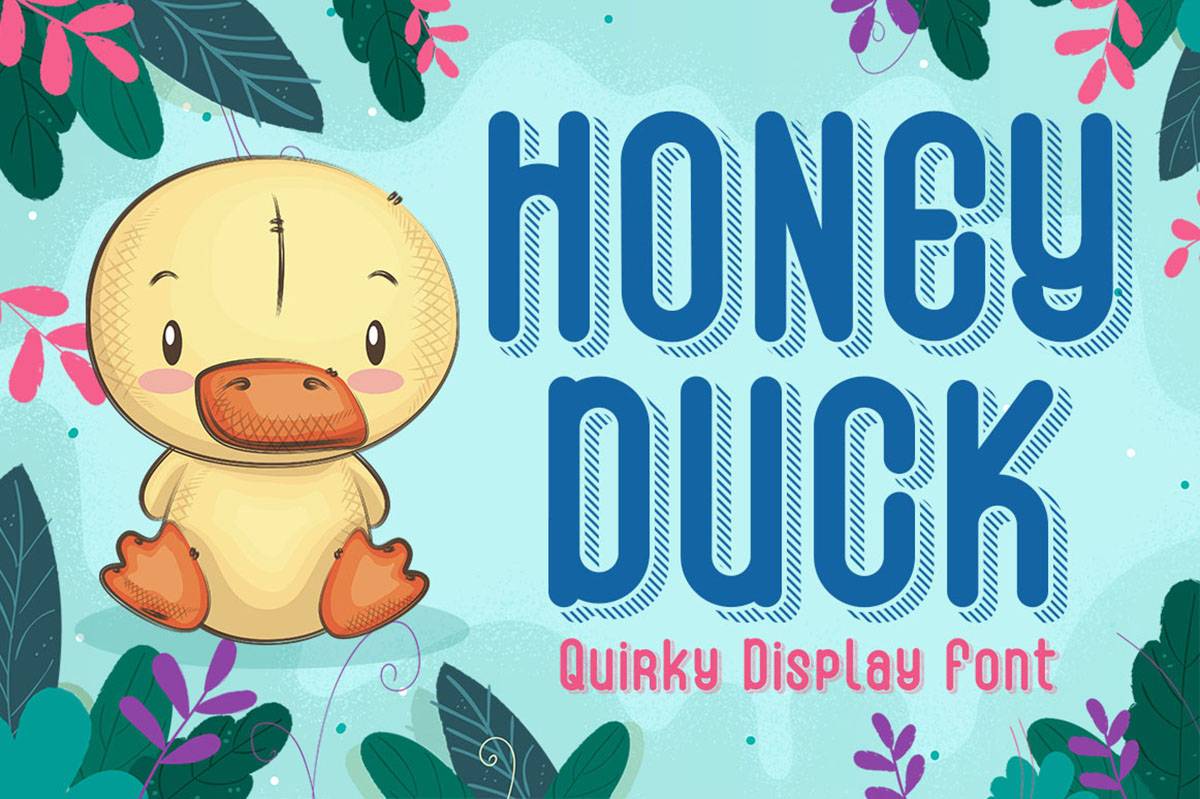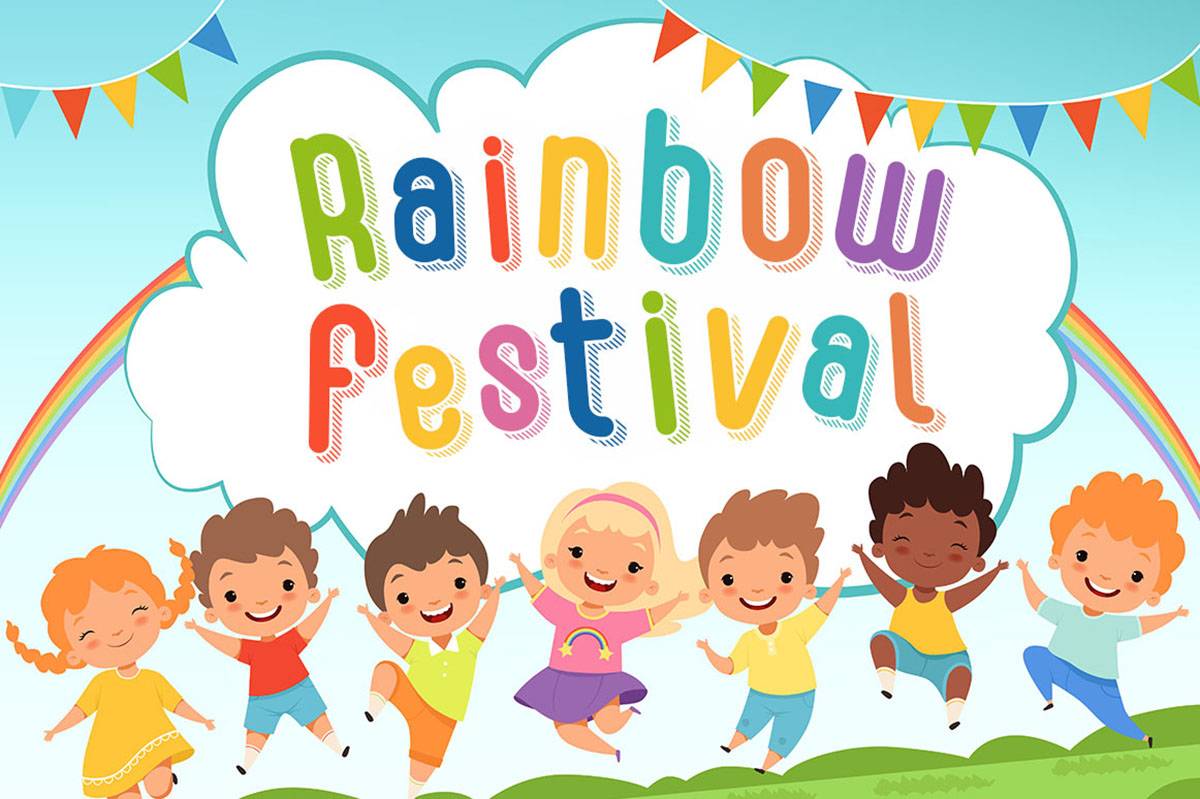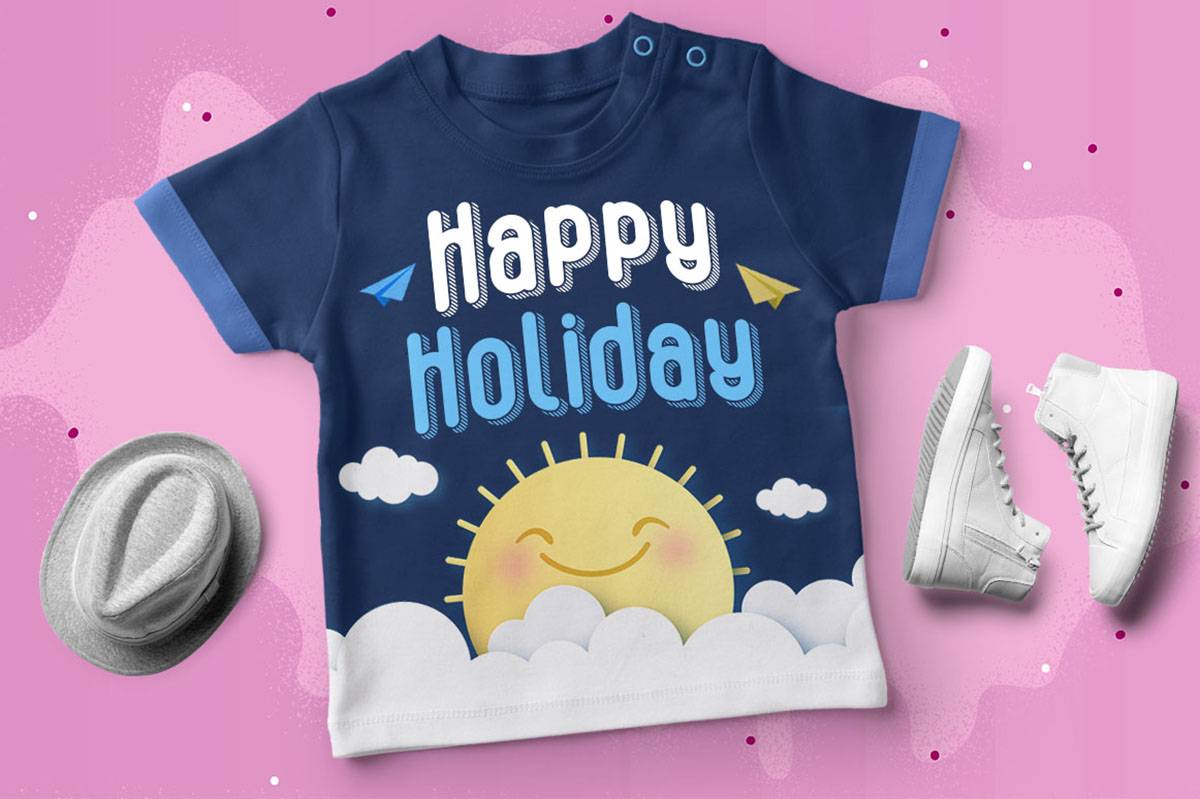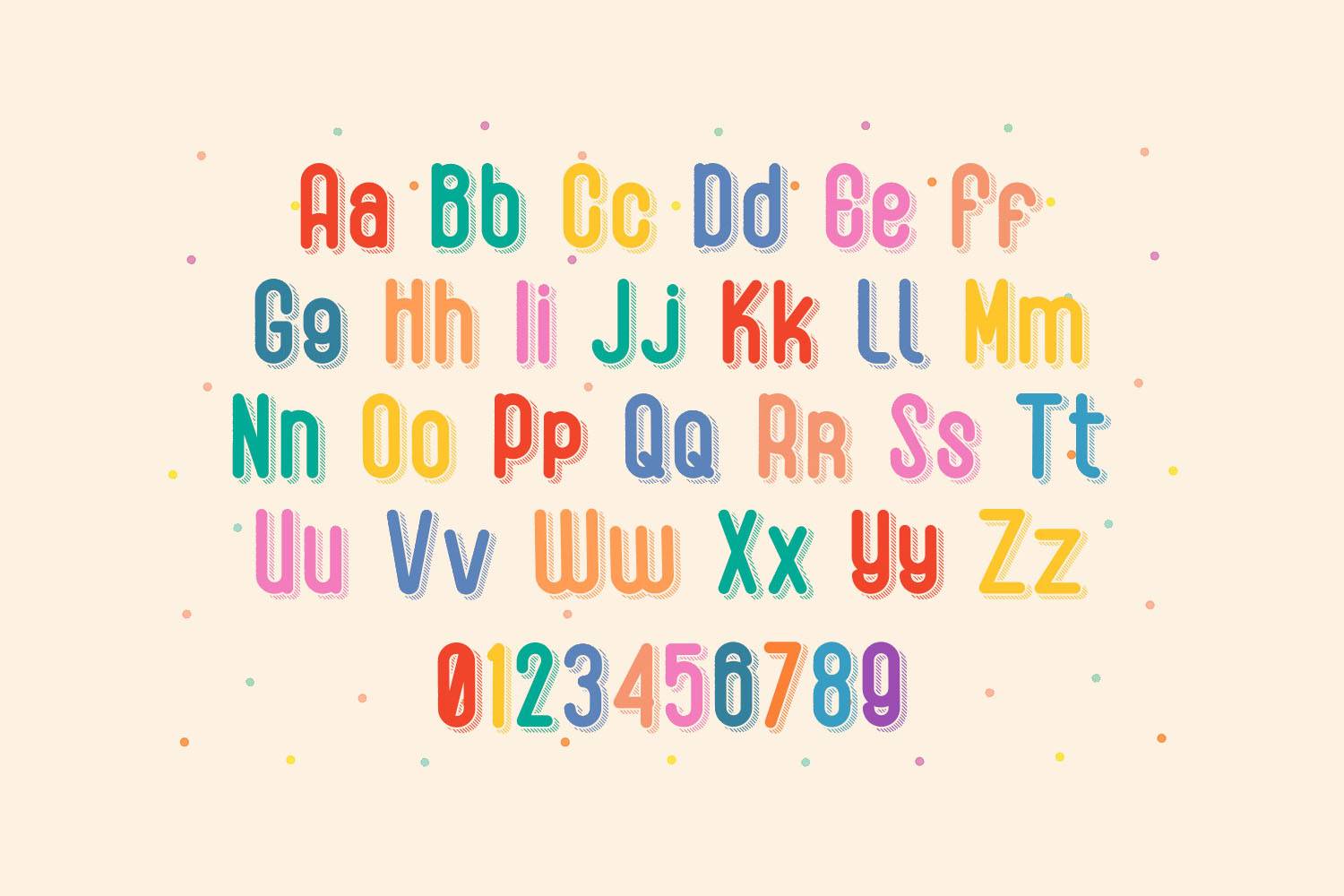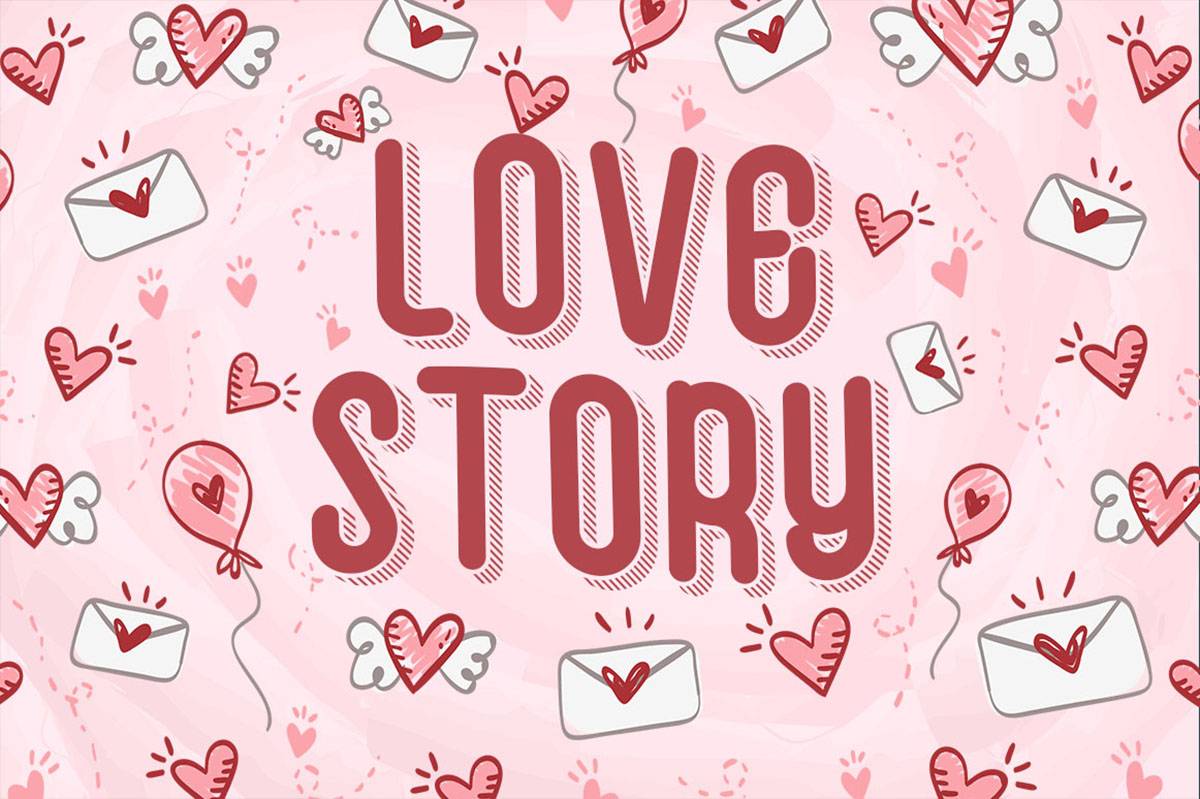
Honey Duck is a playful and bold sans serif font featuring tall, condensed letterforms with rounded corners and a unique hatched shadow effect that adds depth and vintage charm. Its strong presence and distinct style make it perfect for eye-catching headlines, logos, and packaging where a fun yet confident personality is desired. This font shines in creative projects looking to blend retro flair with a modern, friendly vibe.
Honey Duck Font
About Honey Duck Font
| Font family | Honey Duck Font |
| Designer | M Arif Dwi Prasetyo & Eko Nurcahyo |